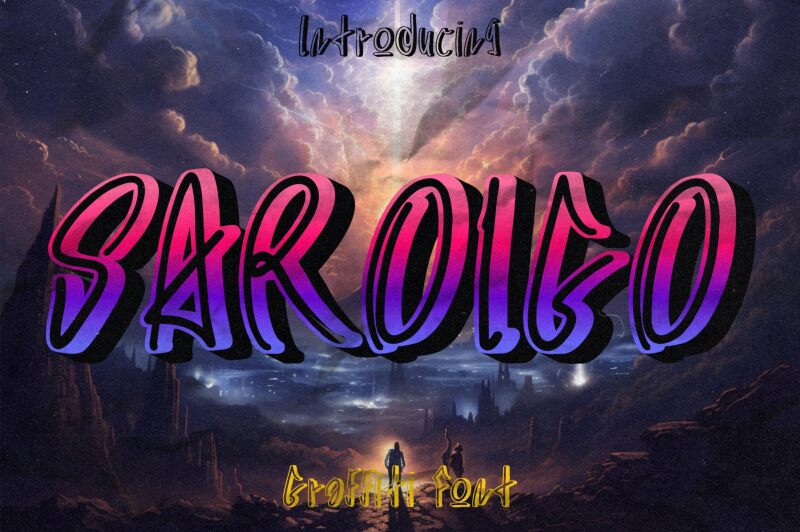
Saroigo font is a graffiti-inspired font designed by Arif Purnomo. Vibrant, dynamic, and urban, this expressive typeface is perfect for adding a contemporary appeal with an artistic flair. Its youthful and energetic appearance captures the essence of graffiti with bold colors and shadowed effects, making it stand out in any design project.
Use Saroigo to create attention-grabbing posters, album covers, streetwear designs, advertisements, or social media graphics. It’s perfect for skateboarding brands, music festivals, or any project that requires a bold and edgy aesthetic.